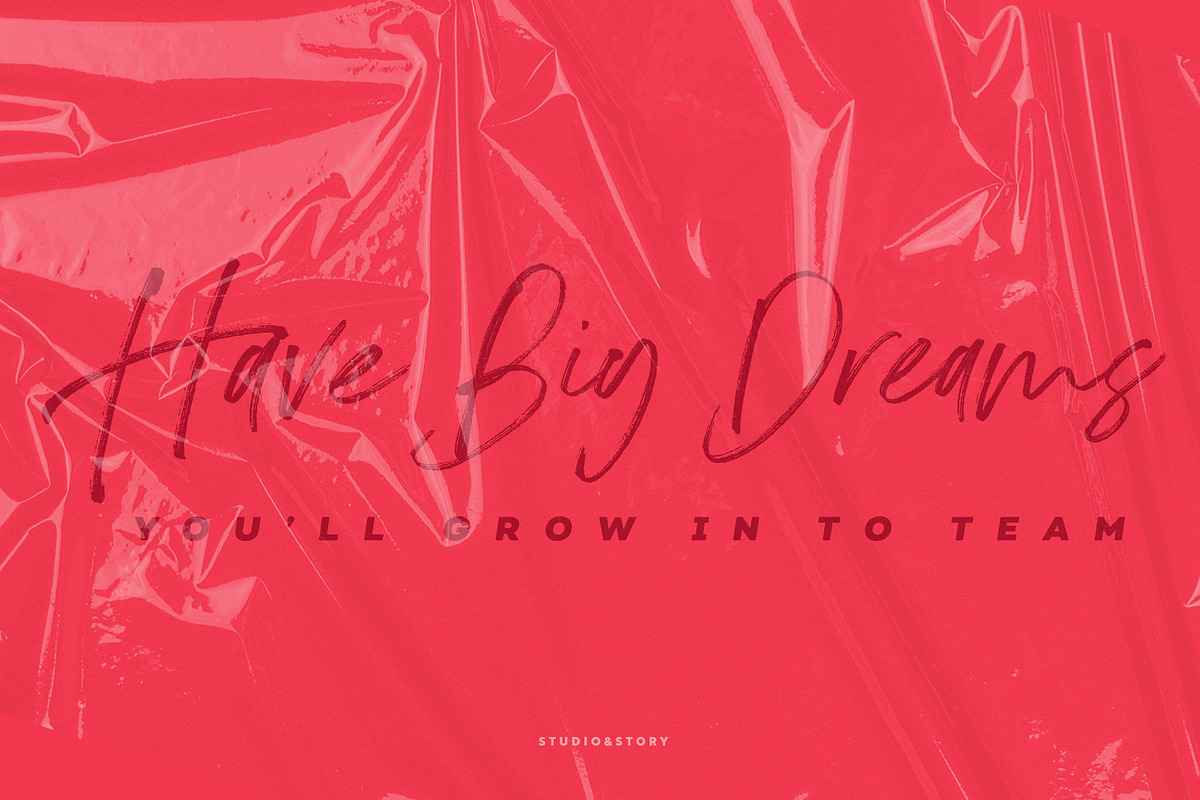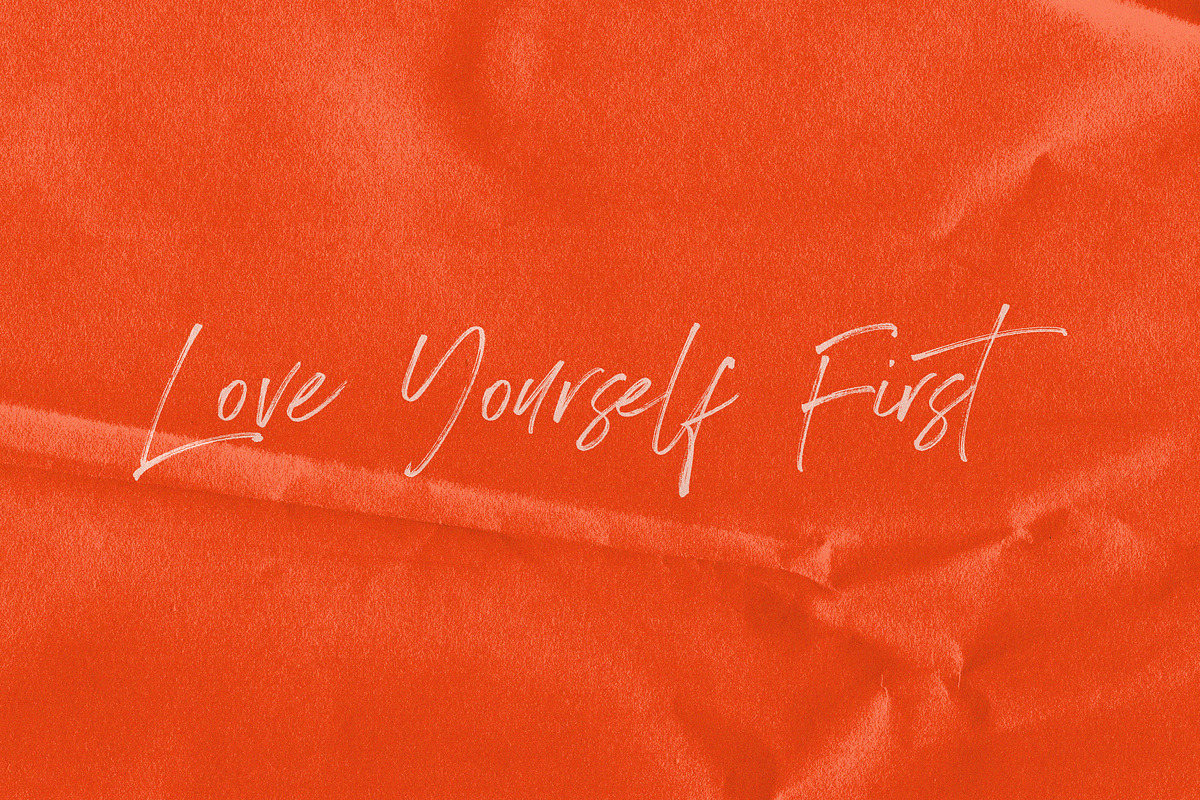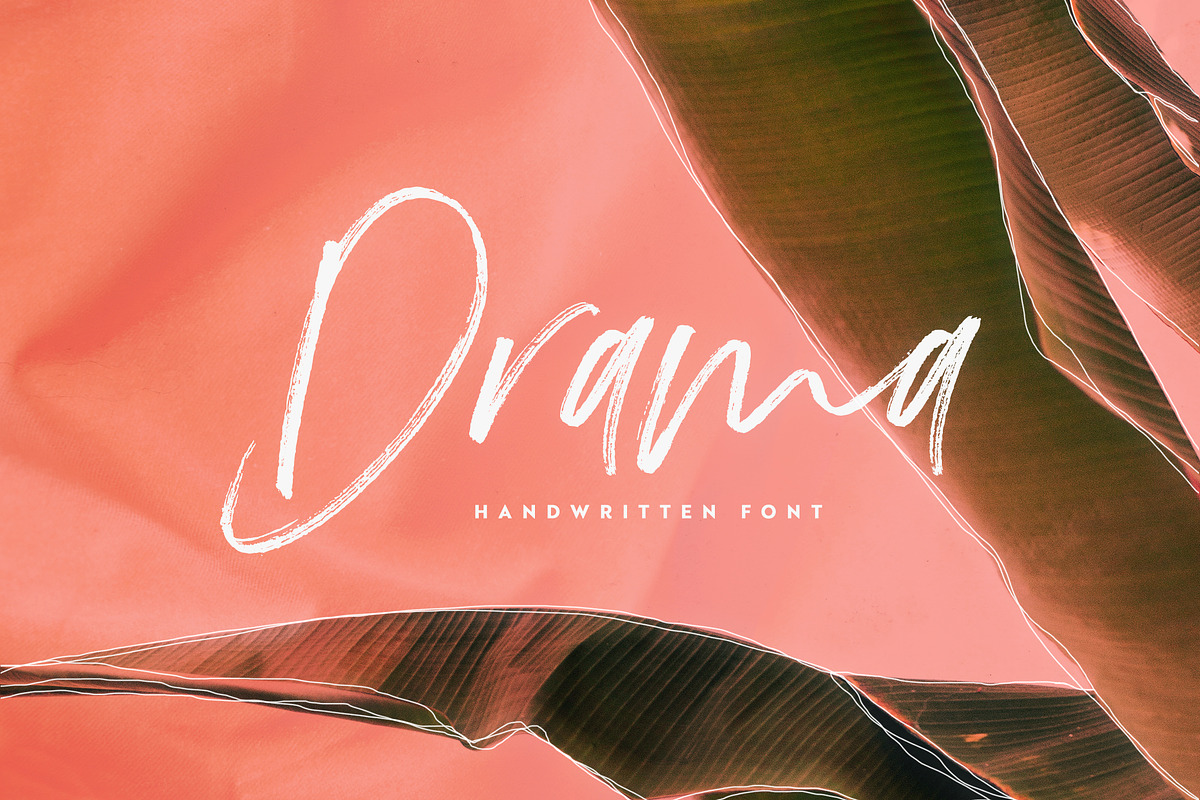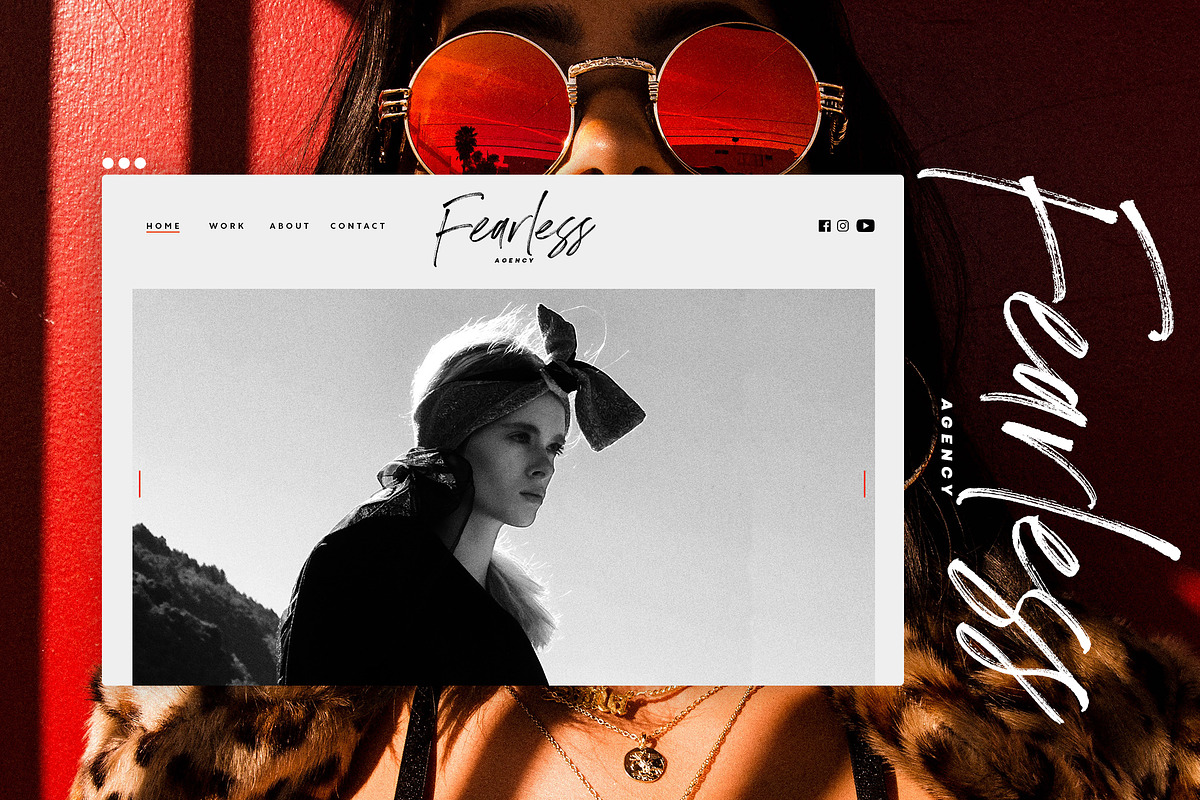
Drama | Script Font
Say hello to Drama, A independent dramatic and rebellious script font, Allow you create a gentle and bold eye catching handmade lettering. With free flowing, fast motion and dry texture would give a feeling of authentic typography for your project.
Created for beautiful logos, Branding projects, Posters, Blog posts, Social media, Advertising and more!
Drama - A handwritten script font, With upper & lowercase characters, numerals and a large range of punctuation. Additionally includes 30 ligatures, alternate and extra set of 6 hand-drawn swashes for perfect finishing touch .
- Additionally includes 30 ligatures, alternate and extra set of 6 hand-drawn swashes for perfect finishing touch .
- What you get: Drama - A handwritten script font, With upper & lowercase characters, numerals and a large range of punctuation.
- Additionally includes 30 ligatures, alternate and extra set of 6 hand-drawn swashes for perfect finishing touch .
Why Drama | Script Font is worth a look